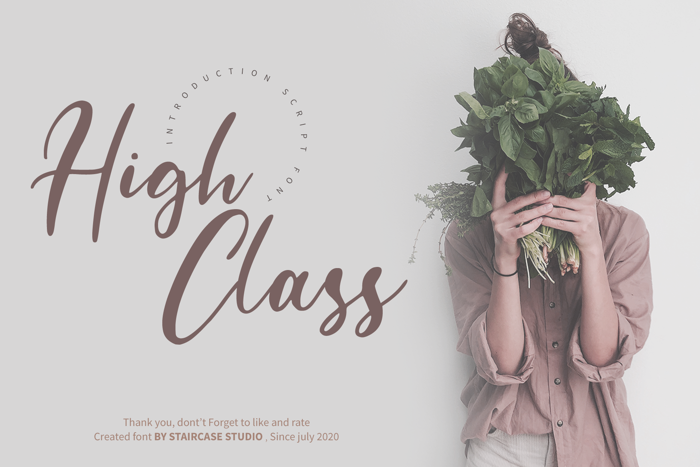
High Class Font
High Class script font. A collection of letters and numbers suitable your projects also great for Logotype, Branding Design, Logo Design, Digital Lettering Arts, T-Shirt/Apparel, Poster, Magazine, Signs, Advertising Design, and any design needs.